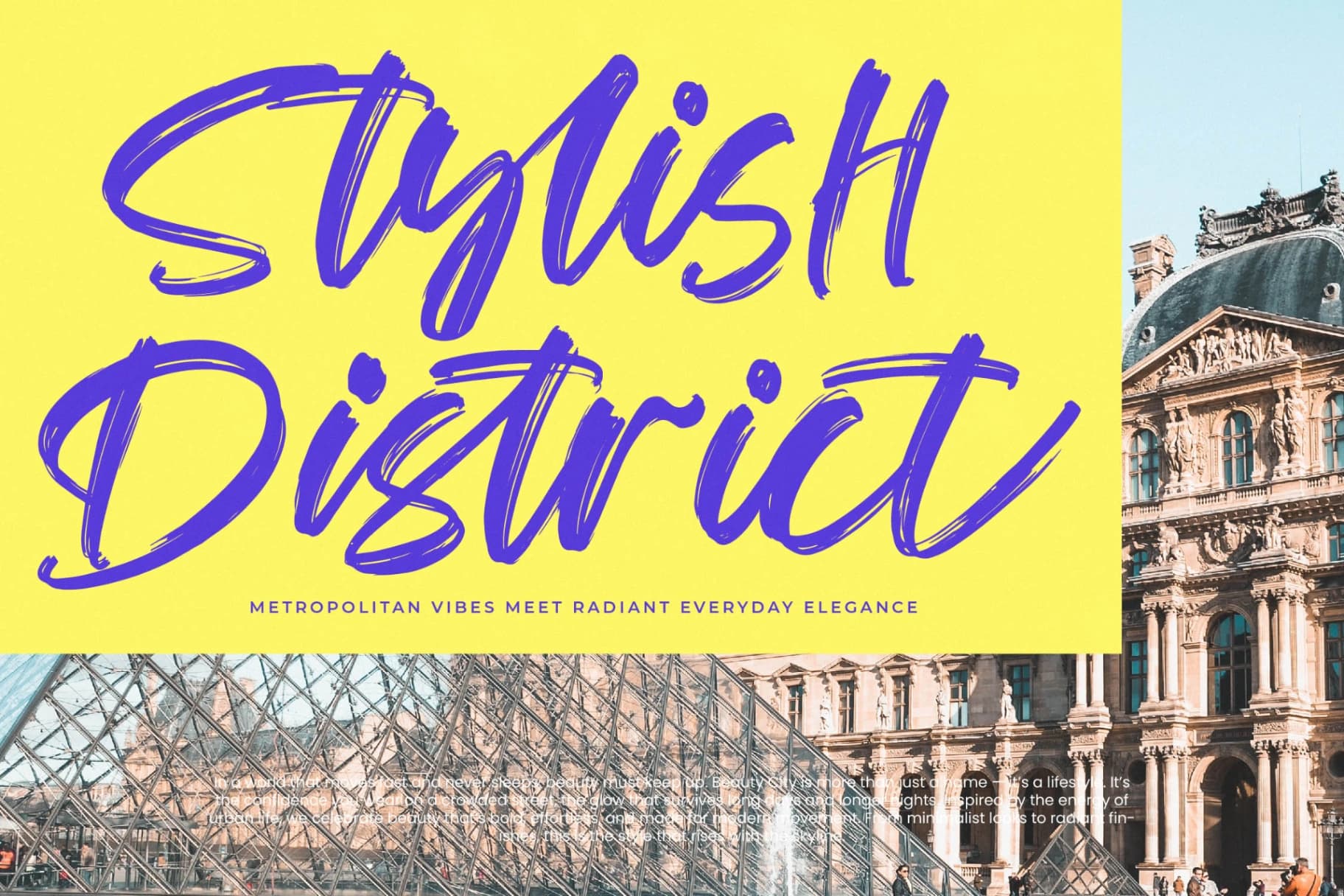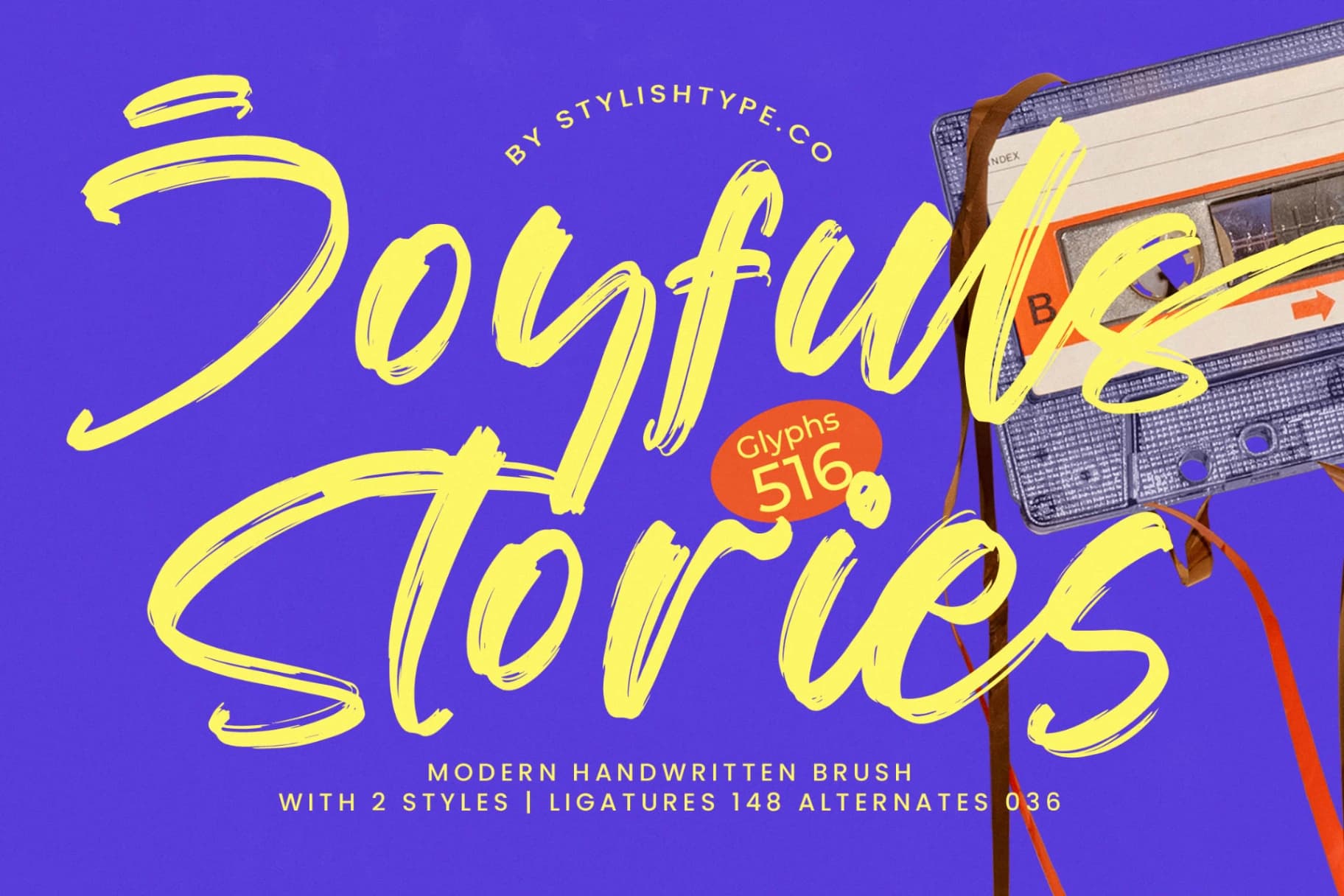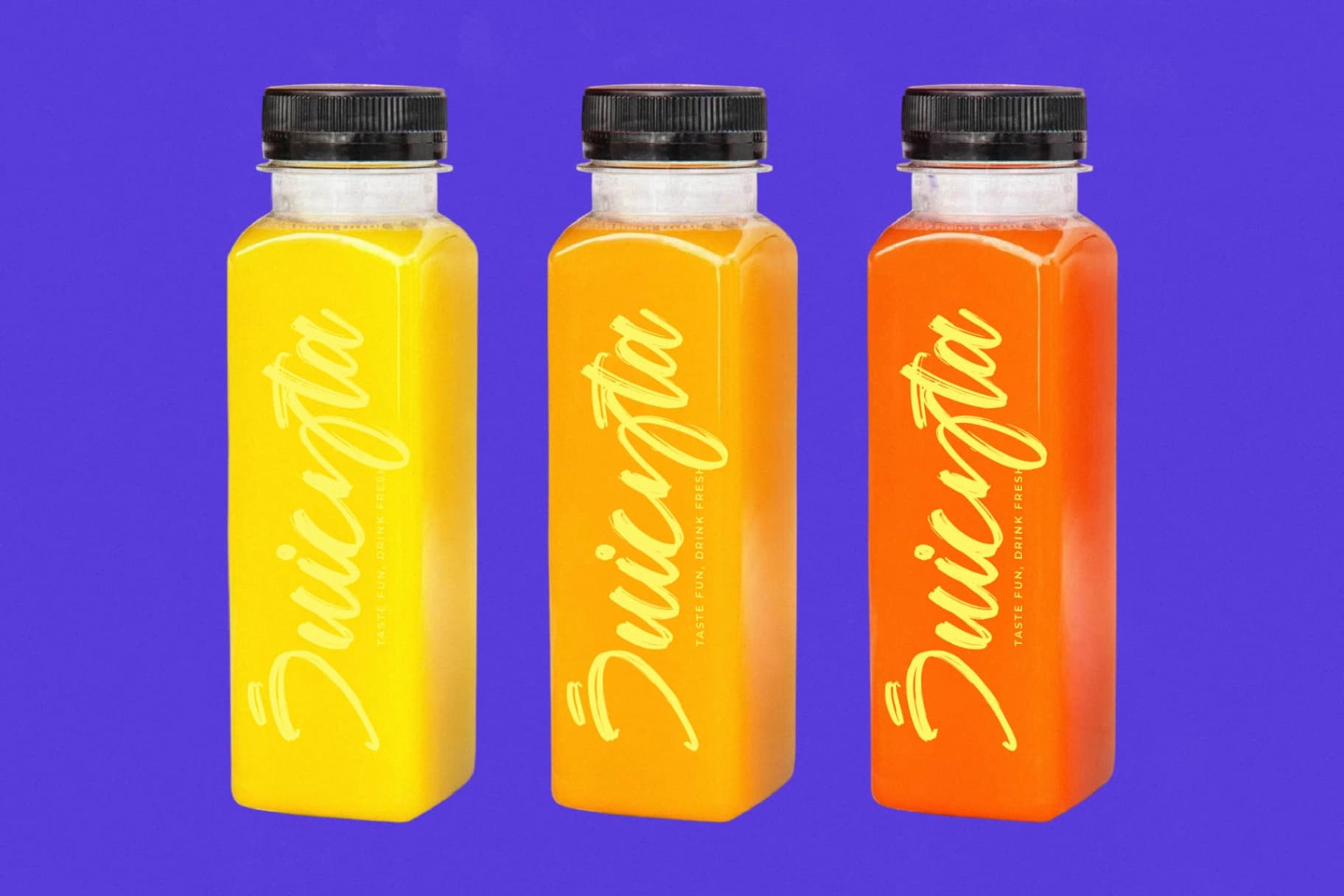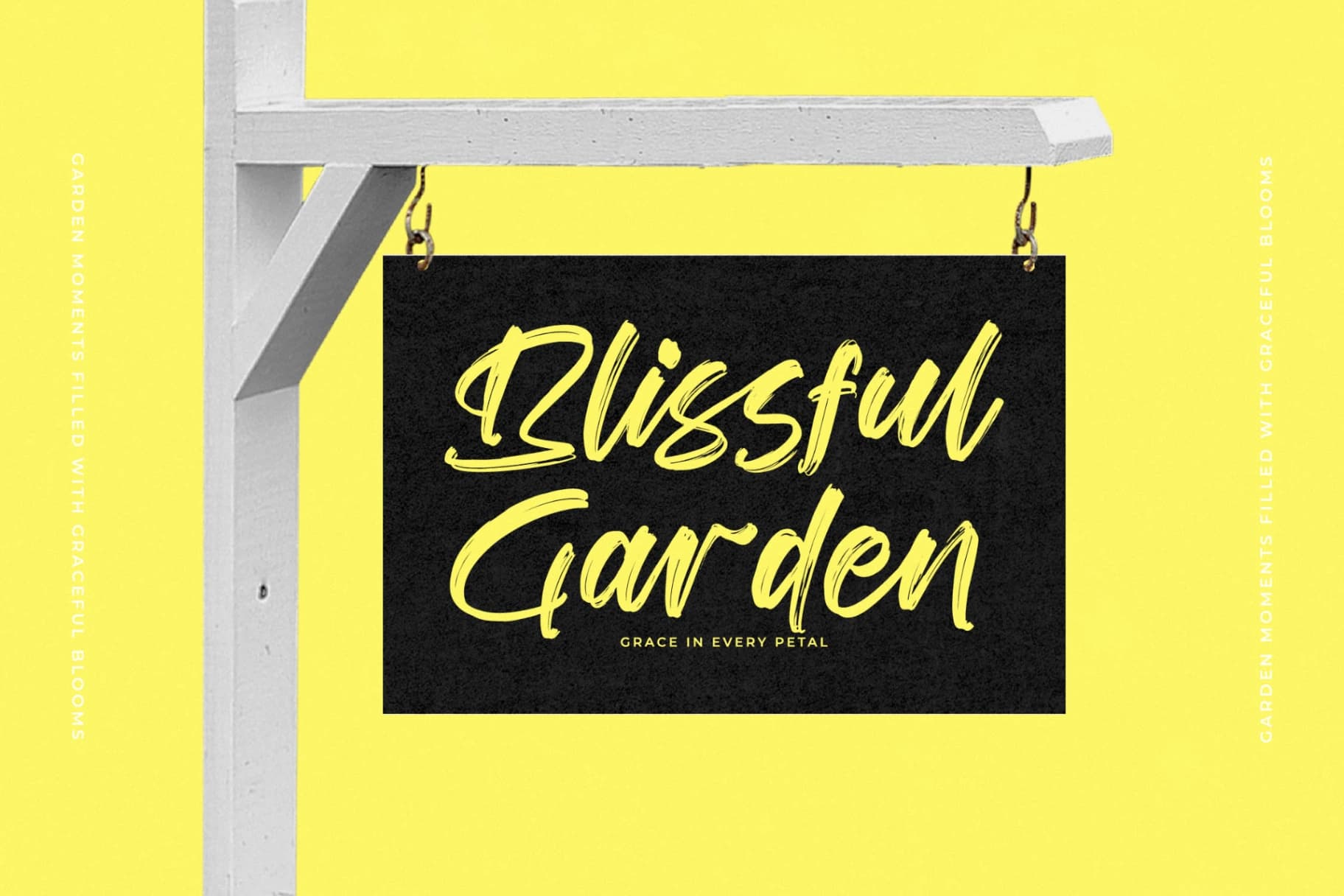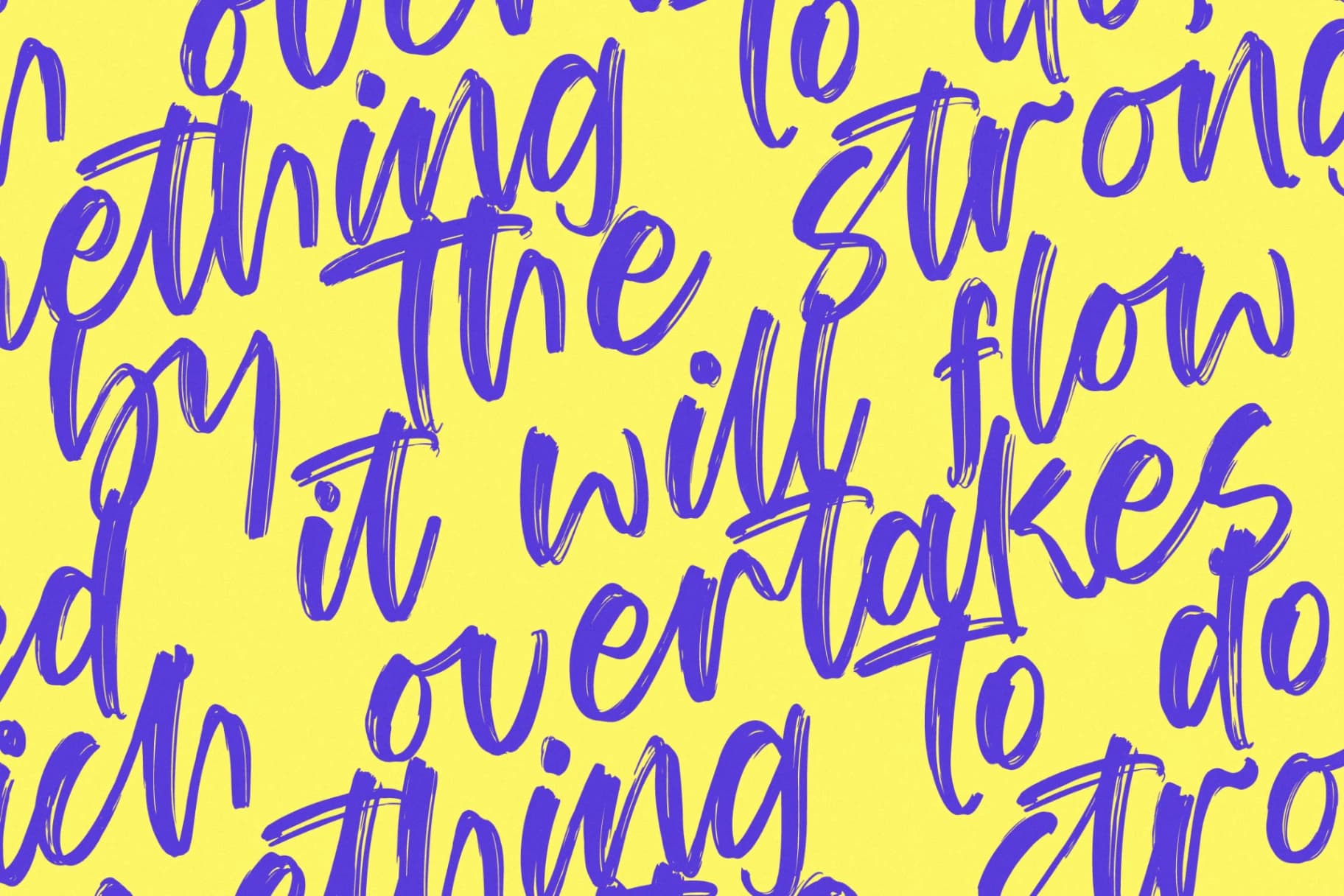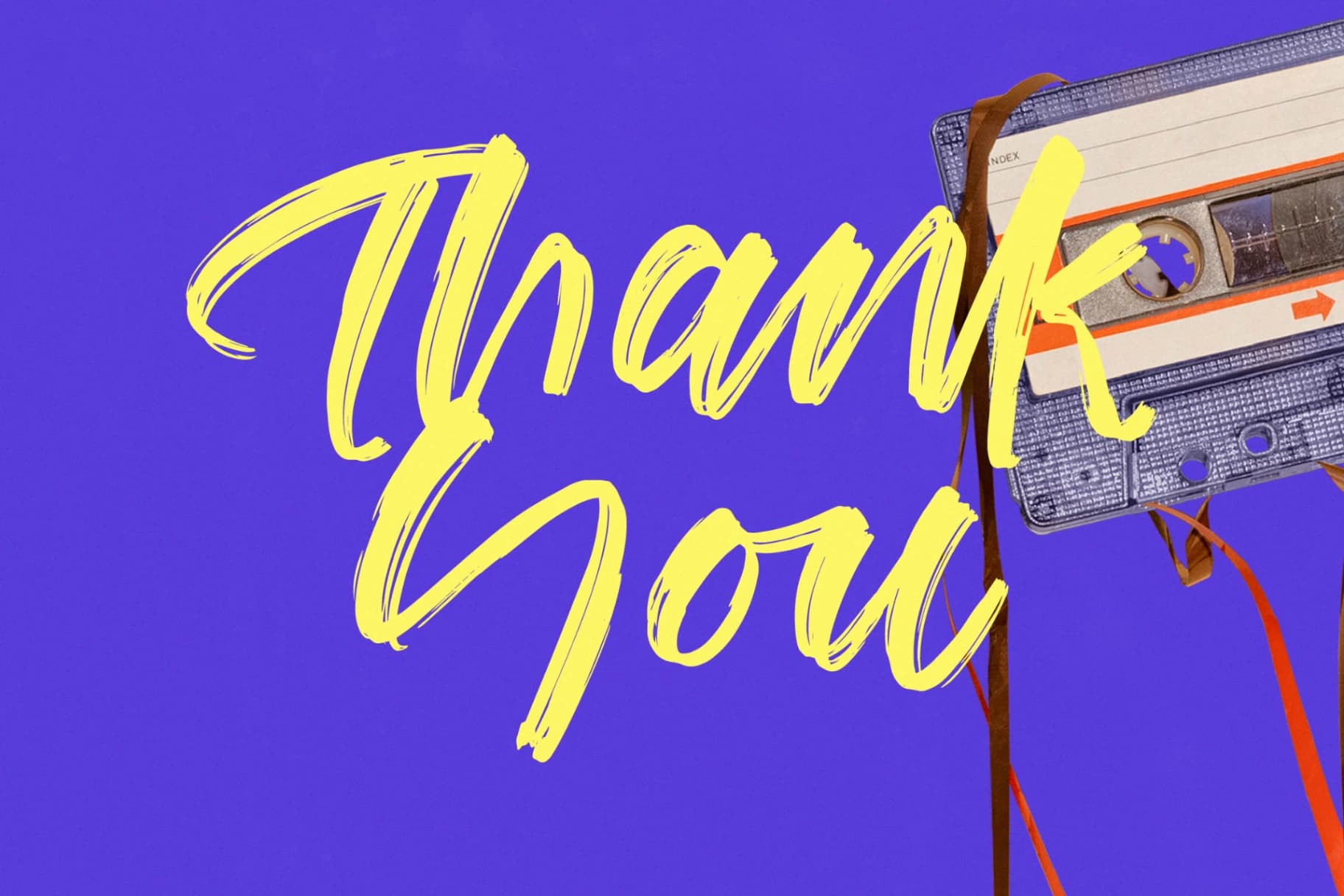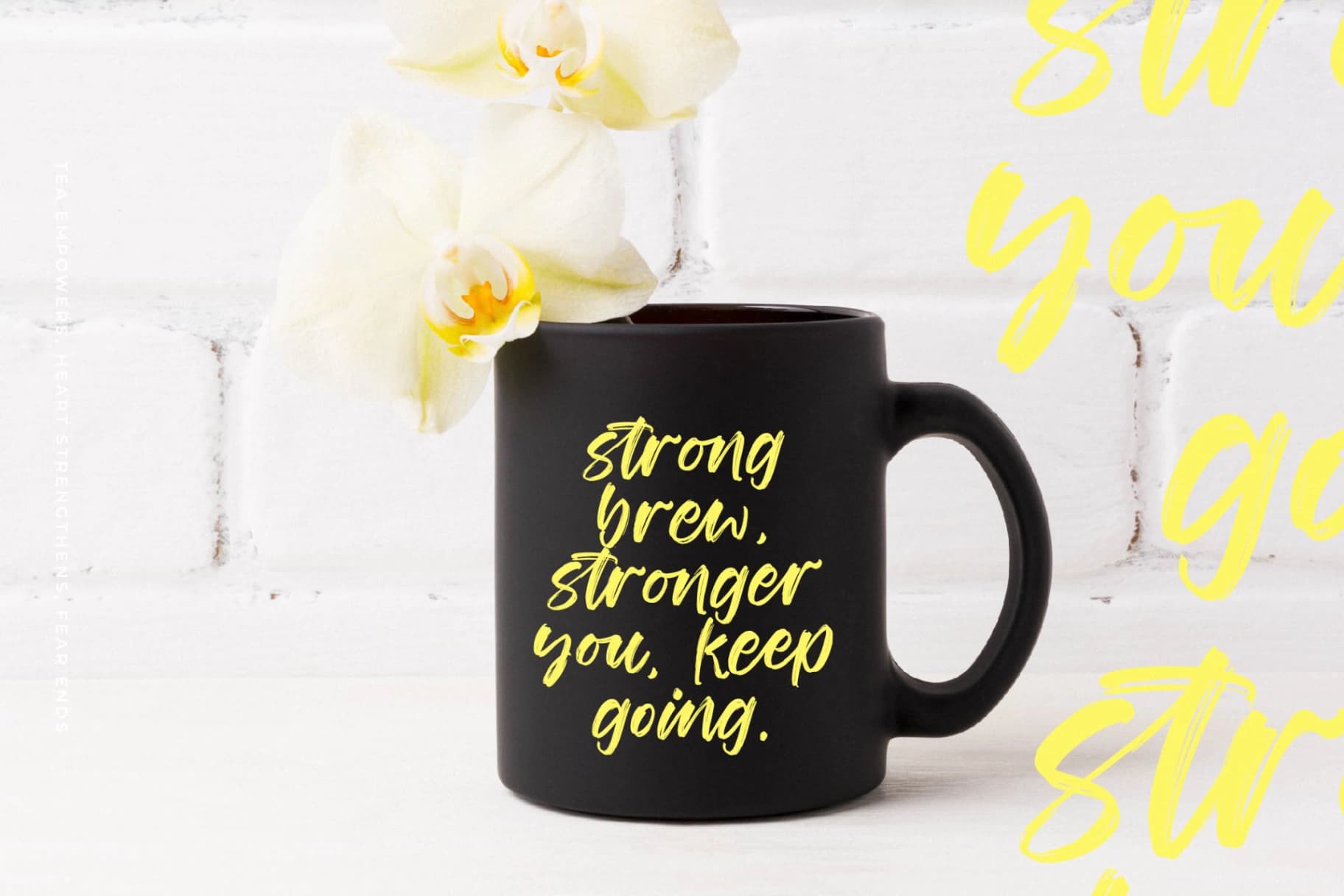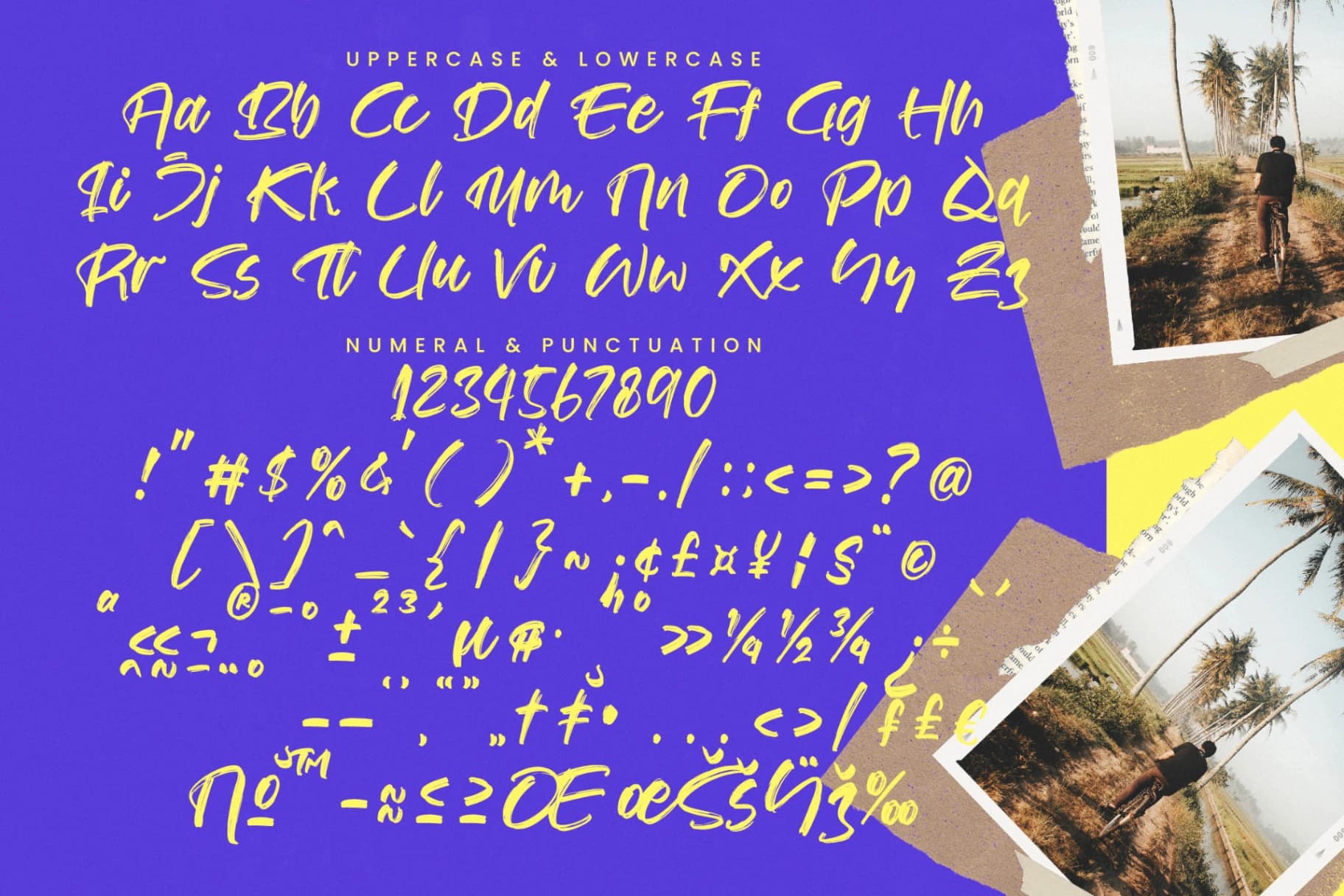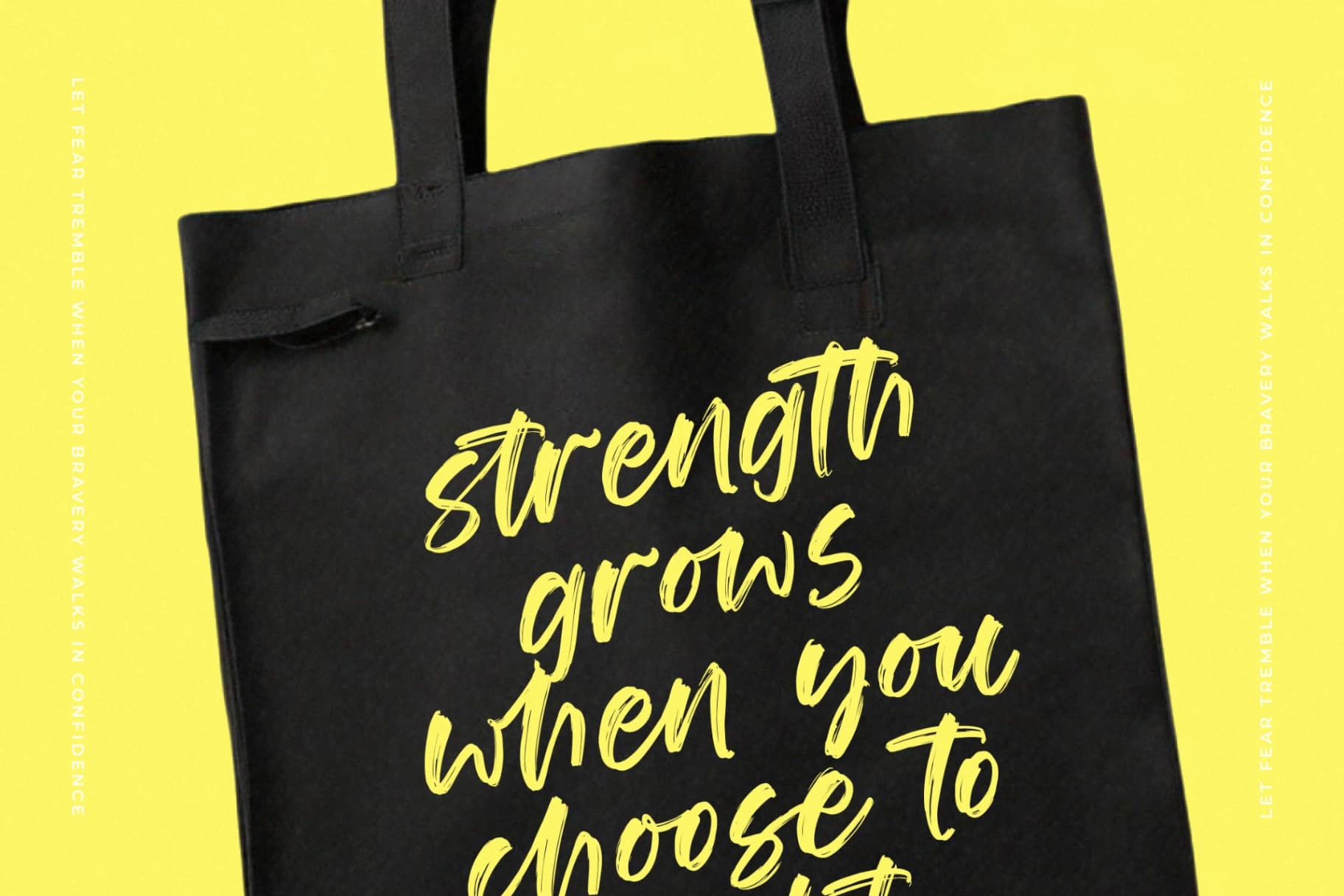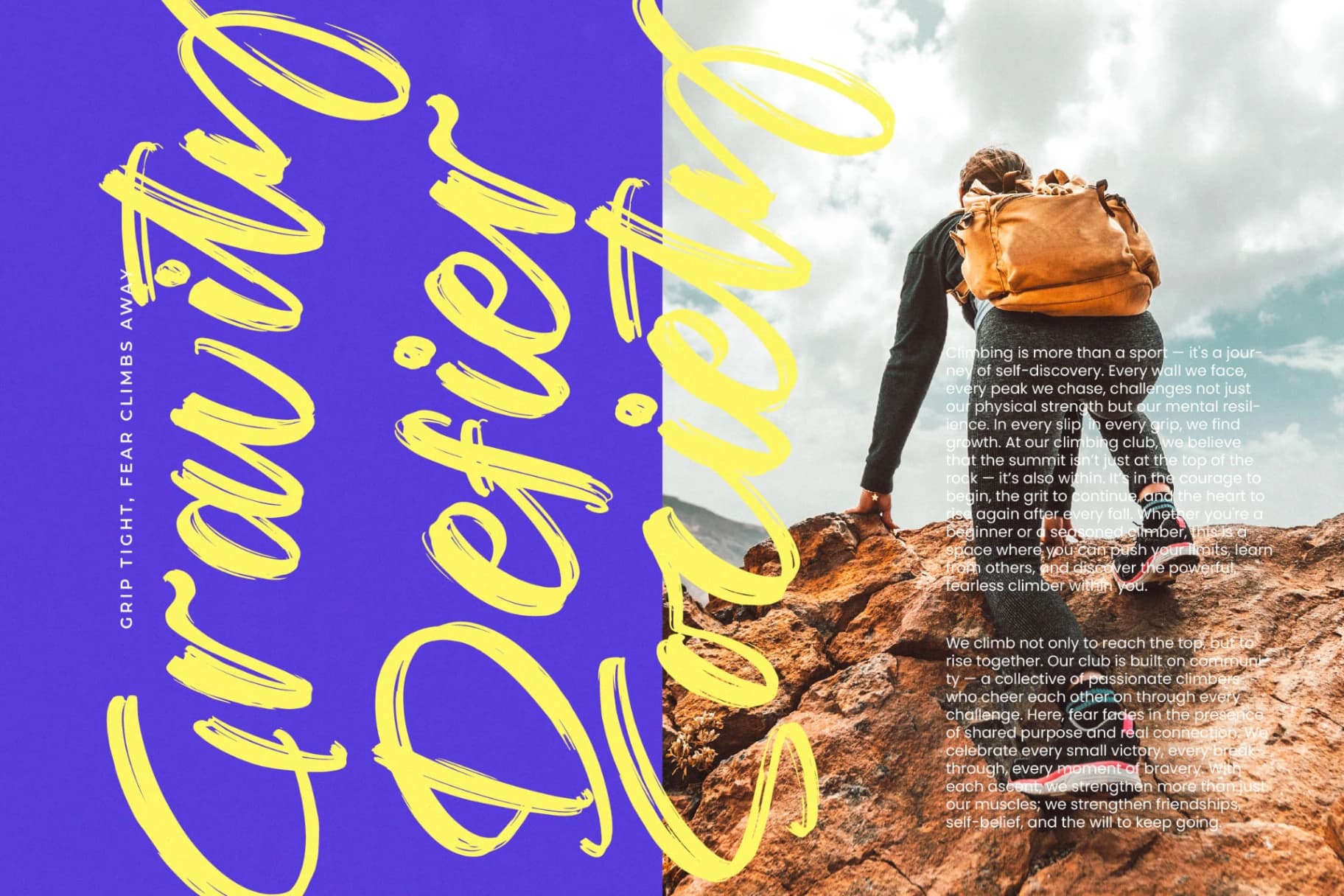
Joyfuls Stories - Modern Handwritten Brush
Elevate your design projects with the captivating charm of Font Joyfuls Stories - Modern Handwritten Brush Script. This dynamic script font embodies an authentic, free-flowing elegance, perfect for creating an immediate connection with your audience. Its distinctive brush strokes exude a natural, handmade aesthetic, offering a fresh and expressive voice that stands out in any creative endeavor.
Unlock a world of creative possibilities with the comprehensive features packed into Font Joyfuls Stories - Modern Handwritten Brush Script. Boasting two distinct styles, an impressive 148 ligatures, and 36 alternate characters, this font provides unparalleled flexibility for truly customized typographic designs. These extensive OpenType features ensure seamless connections and organic variations, allowing you to achieve a truly unique, hand-lettered look with every application.
Transcending geographical boundaries, Font Joyfuls Stories - Modern Handwritten Brush Script offers exceptional global adaptability. With its extensive multilingual support, Font Joyfuls Stories - Modern Handwritten Brush Script adapts seamlessly across global markets, making it incredibly versatile for international projects. This capability ensures your message resonates clearly and beautifully, regardless of the language, enhancing your brand's reach and impact worldwide.
Make an unforgettable statement across a multitude of applications. Font Joyfuls Stories - Modern Handwritten Brush Script is perfect for luxury branding, engaging social media content, evocative packaging design, charming wedding invitations, and impactful editorial layouts. Its intrinsic warmth and playful sophistication make it the ideal choice for projects requiring a personal, authentic, and truly memorable touch, ensuring your creations always leave a lasting impression.